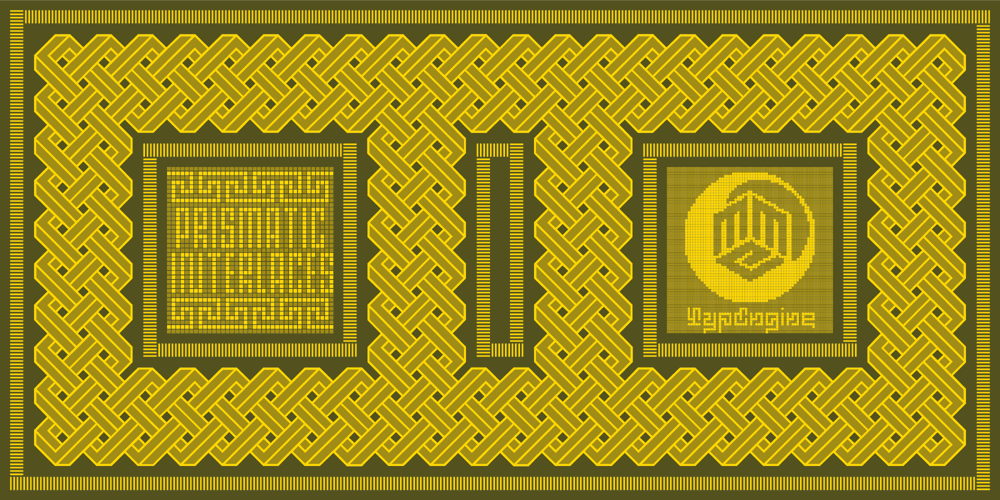
Prismatic Interlaces Font Family was designed by Dr. Andréground and published by MMC-TypEngine. Prismatic Interlaces contains 8 styles and family package options. PRISMATIC INTERLACES TYPEFACE!Prismatic Interlaces is a decorative system and ‘Assembling Game’, itself. Settled in squared pieces modules or tiles, embedded by unprecedented Intertwined Prismatic Structures Design, or intricate interlaced bars that may seem quite “impossible” to shape.Although it originated from the ‘Penrose Square’, it may not look totally as an Impossible Figures Type of Optical Illusions. More an “improbable” Effect in its intertwined Design, that even static can seem like a source of Kinetical Sculptures, or drive eyes into a kind of hypnosis.Prismatic Interlaces has two related families, both as a kind of lighter weight versions Prismatic Spirals Default & Pro. While Default is simpler or easier to use, same way as Prismatic Interlaces, Pro provides a more complex intricate Design that requires typing alternating caps.Instructions:Use the Map Font Reference PDF as a guide to learn the ’tiles’ position on the keyboard, then easily type and compose puzzle designs with this font! All alphanumeric keys are intuitive or easy to induce, you may easily memorize it all! Plus, often also need to consult it!*Find the Prismatic Interlaces Font Map Reference Interactive PDF Here!(!) Is recommended to Print it to have the Reference in handy or just open the PDF while composing a design with this typeface to also copy and paste, when consulting is required or when it may be difficult to access, depending on the keyboard script or language.As a Tiles Type-System, the line gap space value is 0, this means that tiles line gaps are invisibly grouted, so the user can compose designs, row by row, descending to each following row by clicking Enter, same as line break, while advances on assembling characters.Background History:The first sketches of my Prismatic Knots or Spirals Designs dates back then from 2010, while started developing hand-drawn Celtic Knots and Geometric Drawings in grid paper, while engage to Typography, Sacred Geometry and the “Impossible Figures” genre…I started doing modulation tests from 2013, until around 2018, I got to unravel it in square modules or tiles from the grid, then idealized it as fonts, along with other Type projects. This took 13 years to come out since the first sketches and 6 months in edition.During the production process some additional tiles or missing pieces were thought of and added to the basic set, which firstly had only the borders, corners, crossings, nets, Trivets connectors or T parts and ends, then added with nets and borders integrations.Usage Suggestions:This type-system enables the user to ornate and generate endless decorative patterns, borders, labyrinthine designs, Mosaics, motifs, etc. It can seem just like a puzzle, but a much greater tool instead for higher purposes as to compose Enigmas and use seriously.As like also to write Real Text by assembling the key characters or pieces, this way you can literarily reproduce any Pixel Design or font to its Prismatic Spirals correspondent form, as Kufic Arabic script and further languages and compose messages easily…This Typeface was made to be contemplated, applied, and manufactured on Infinite Decorative Designs as Pavements, Tapestry, Frames, Prints, Fabrics, Bookplates, Coloring Books, Cards, covers or architectonic frontispieces, storefronts, and Jewelry, for example.Usage Tips:Notice that the line-height must be fixed to 100% or 1,0. In some cases, as on Microsoft Word for example, the line-height default is set to 1,15. So you’ll need to change to 1,0 plus remove space after paragraph, in the same dropdown menu on Paragraph section.Considering Word files too, since the text used for mapping the Designs, won’t make any literal orthographical sense, the user must select to ignore the Spellcheck underlined in red, by clicking over each misspelled error or in revision, so it can be better appreciated.Also unfolding environments as Adobe Software’s, the Designer will use the character menu to set body size and line gap to same value, as a calculator to fit a layout for example of 1,000 pts high with 9 tiles high, both body size and line gap will be 111.1111 pts.Further Tips:Whenever an architect picks this decorative system to design pavements floor or walls, a printed instruction version of the layout using the ‘map’ font may be helpful and required to the masons that will lay the tiles, to place the pieces and its directions in the right way.Regarding to export PNGs images in Software’s for layered Typesetting as Adobe Illustrator a final procedure may be required, once the designs are done and can be backup it, expanding and applying merge filter, will remove a few possible line glitches and be perfected.Technical Specifications:With 8 styles and 4 subfamilies with 2 complementary weights each (Regular and Bold) therefore, Original Conto